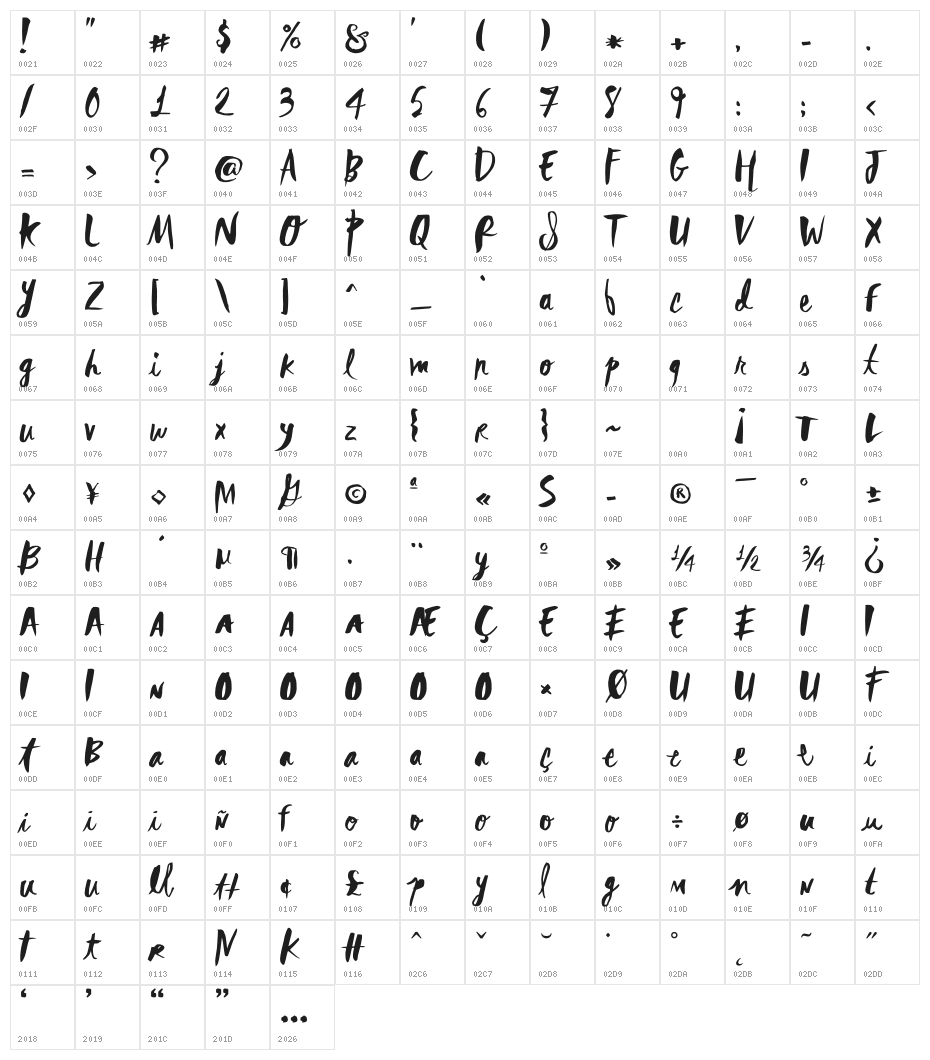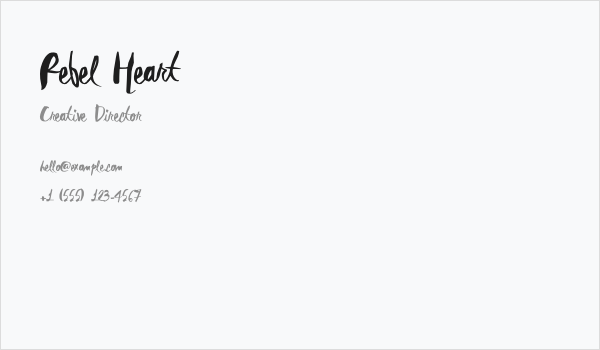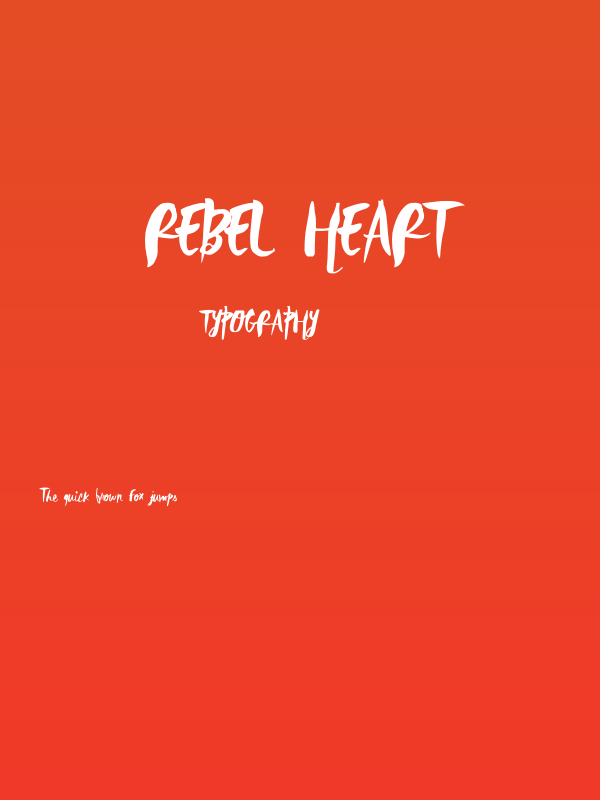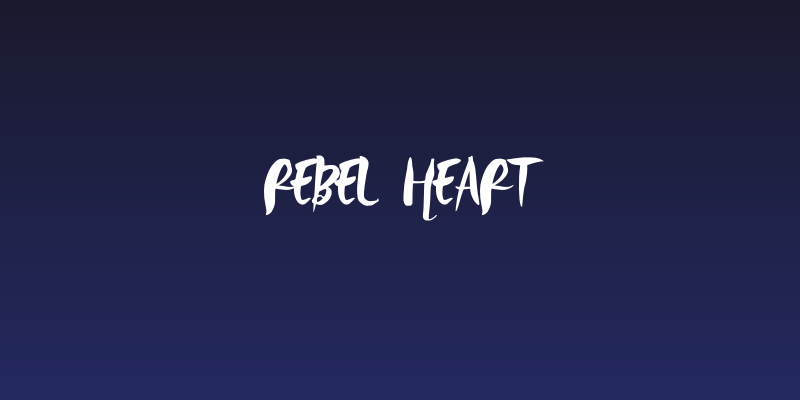
Rebel Heart Font
Rebel Heart Description
This font features a bold, expressive style with a handwritten aesthetic. The letters are characterized by their fluid, dynamic strokes, giving a sense of movement and energy. The uppercase and lowercase letters maintain a consistent style, with varying stroke widths that add a lively and artistic flair. The numbers and special characters follow the same energetic design, making the font versatile for creative projects. Its unique appearance makes it stand out, perfect for capturing attention and conveying a sense of individuality.
| Proposed Projects | Ideal for branding, posters, album covers, and creative social media graphics. |